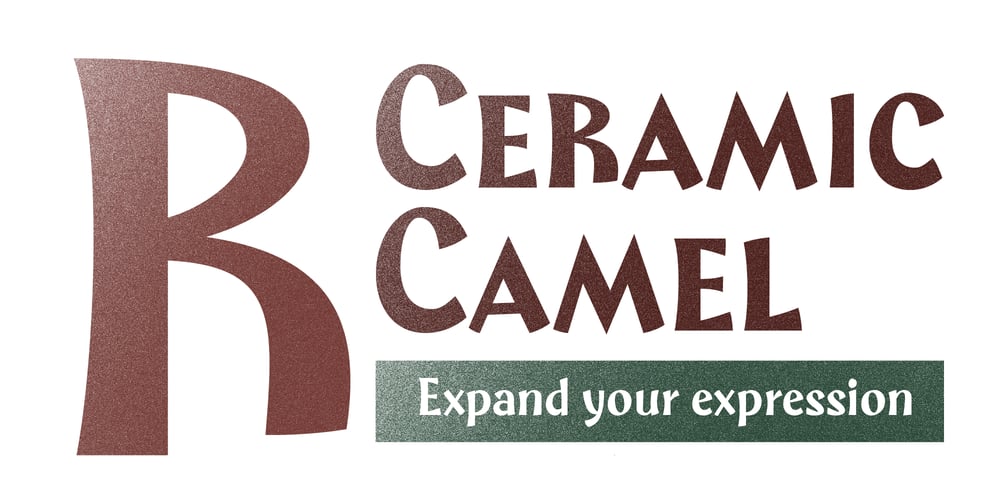
Ceramic Camel Font Family was designed by Kaito Osawa and published by Willow Type Foundry. Ceramic Camel contains 1 styles and family package options. Ceramic Camel is a font designed for display purposes. It features cute designs inspired by the lettering of British poster designer Austin Cooper, with a slightly retro vibe. It is a sans-serif font with some calligraphic touches.It also includes small capitals and tabular numerals. With two variations of the ampersand provided, your expression in poster design will be enhanced.